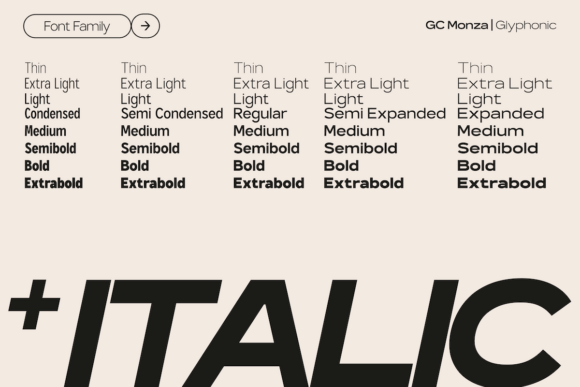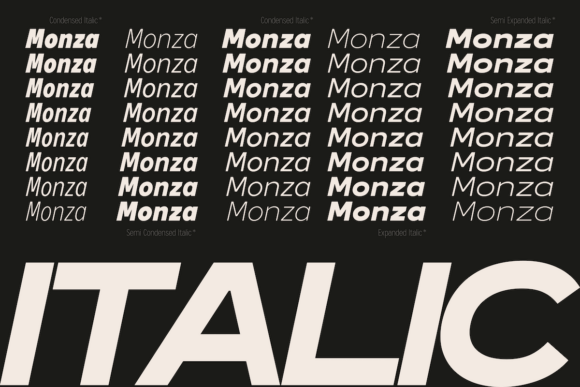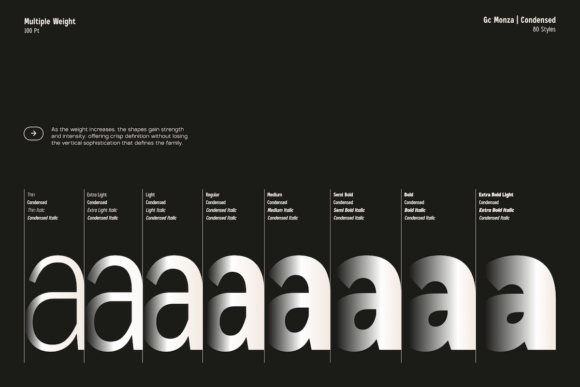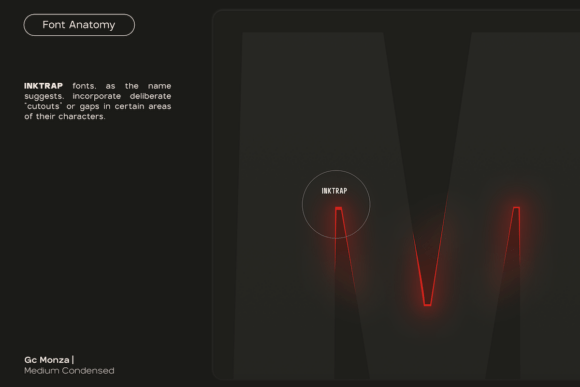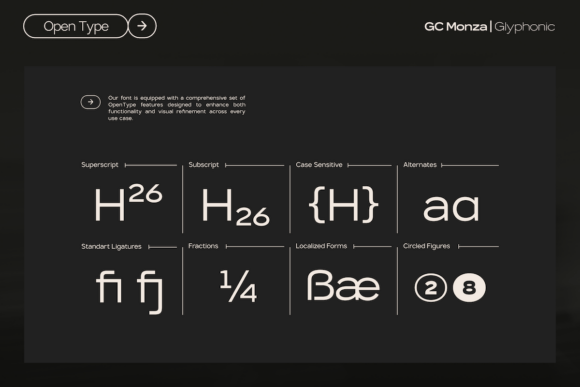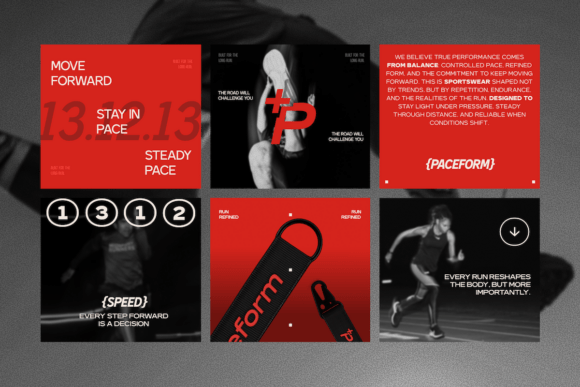
Introduction to Monza Font
Monza is a contemporary sans serif typeface engineered for precision, versatility, and strong visual character.
Designed with a refined structural system and modern detailing , it balances clarity with subtle complexityโcreating a distinctive voice that feels both technical and expressive With clean construction, confident strokes, and carefully calculated proportions, Monza delivers exceptional readability across branding, editorial design, corporate identity, packaging, UI systems, and digital interfaces.
Key Features of Monza Font
Why Choose Monza Font?